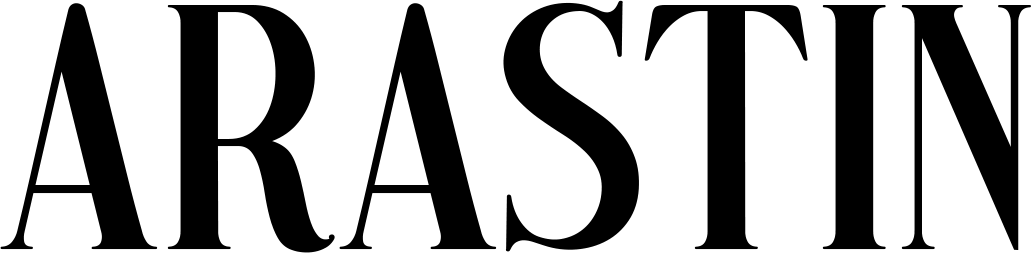
Arastin Font
Arastin font is reminiscent of the modern eras, which can help design flyers and posters and play a significant role in the titles of magazines and newspapers. We recommend using this serif font as soon as possible for your fashionable visit cards.
This didone font has thin and thick lines. Remember it does not support lowercase letters, but you can implement various classic and luxury brand designs with this gorgeous font.